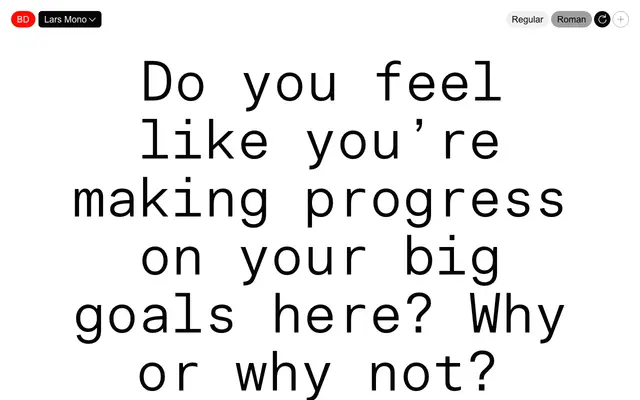
Lars Mono
A single-weight monospaced roman from Bold Decisions, offered in one upright cut without italics or weight variants.
Lars Mono is a stripped-back monospaced typeface from Bold Decisions, available in a single Regular roman style. With no italic, no weight range and no condensed cuts, it reads as a deliberate exercise in restraint. The page offers little further detail, but the minimalist approach suggests a typeface designed for focused, functional use.
Described simply as Regular and Roman, this is a monospaced typeface with a roman upright cut, consistent with a minimal mono release from an independent foundry.